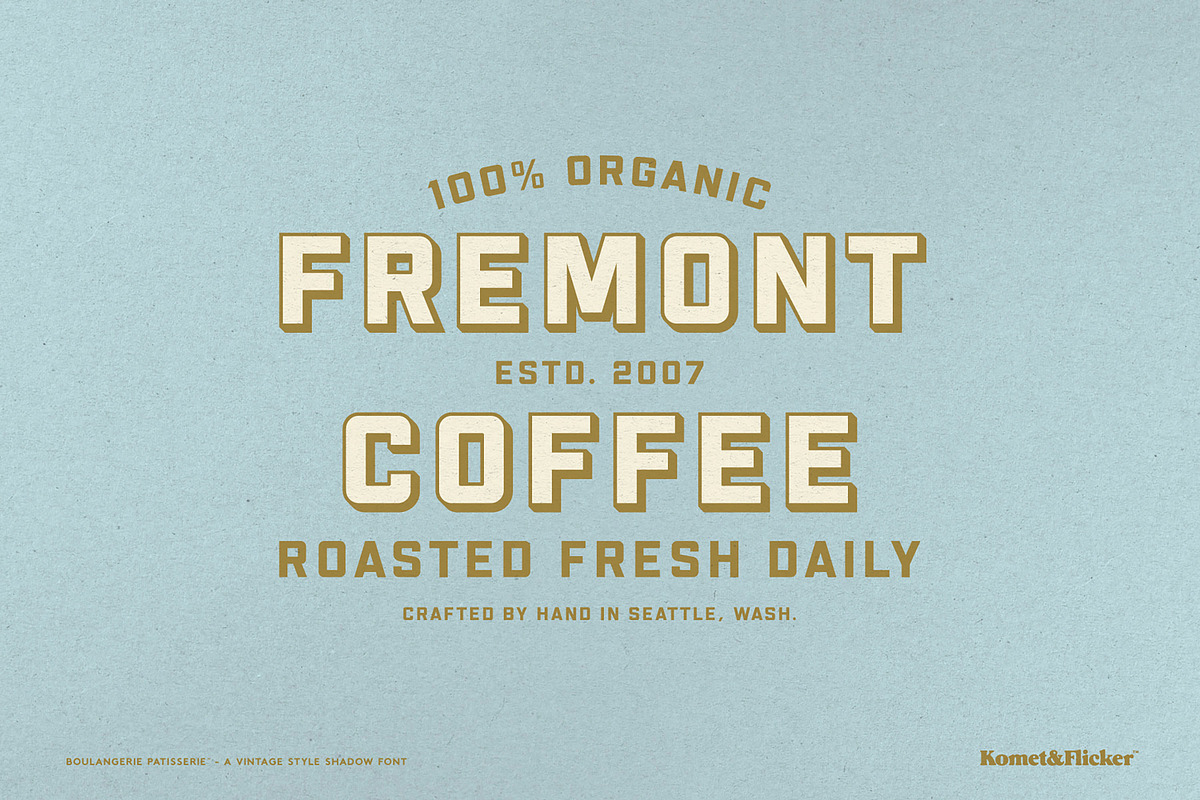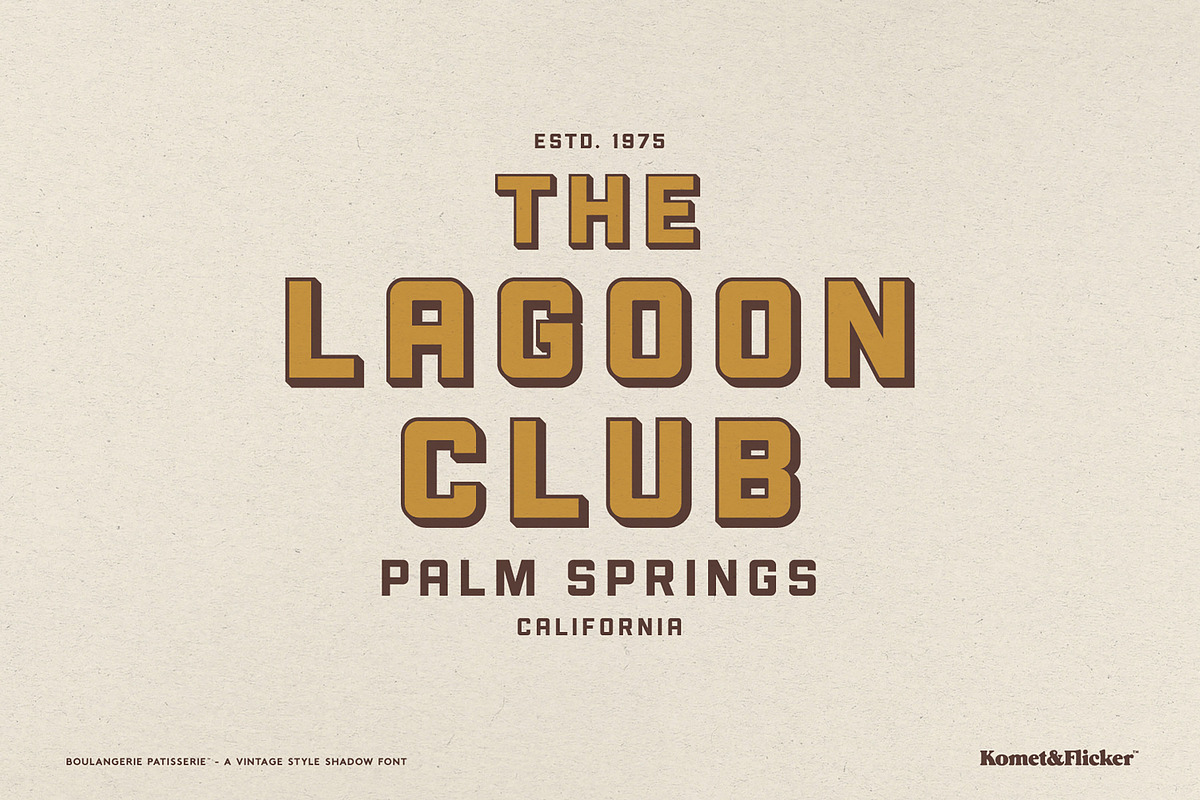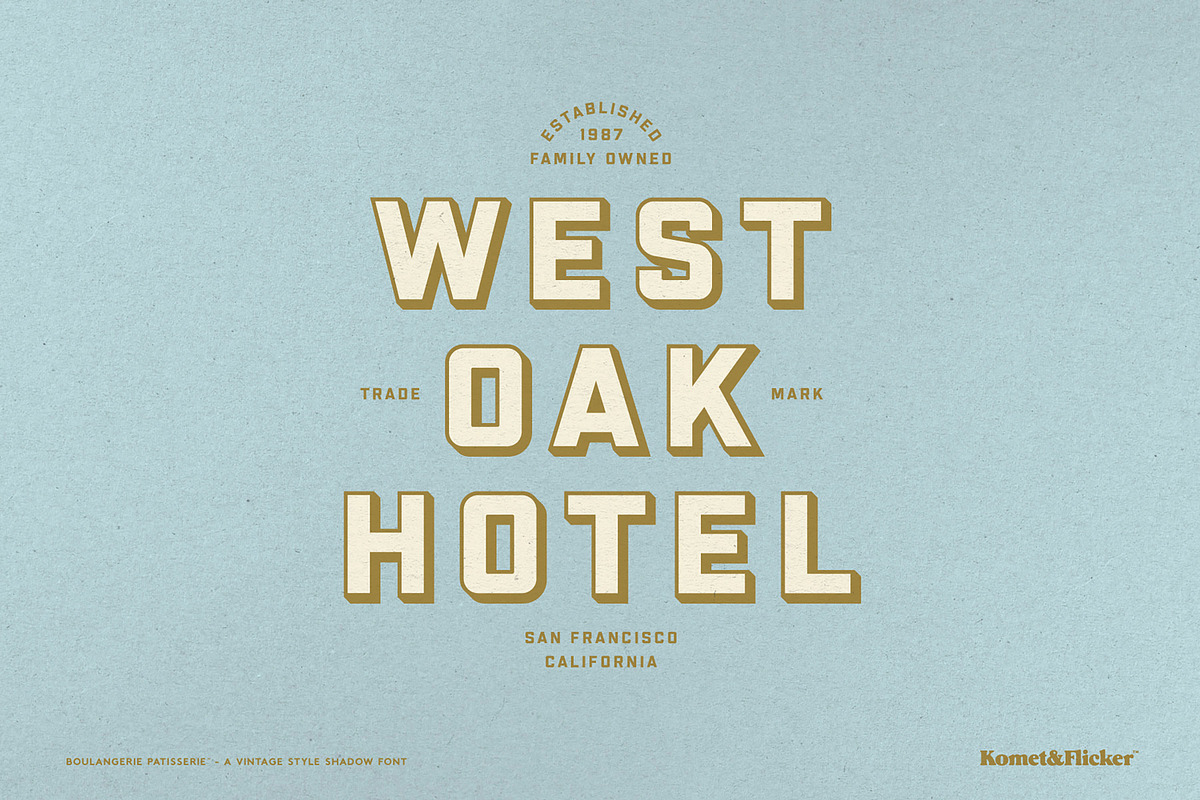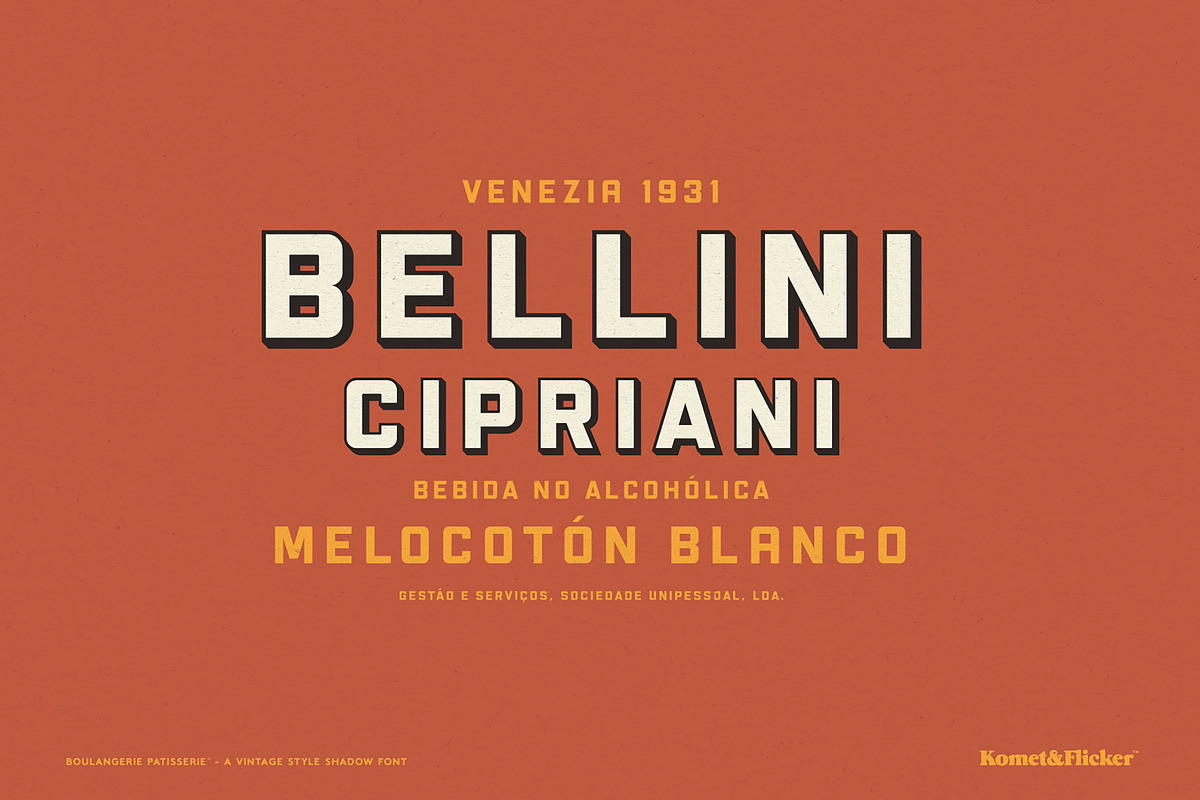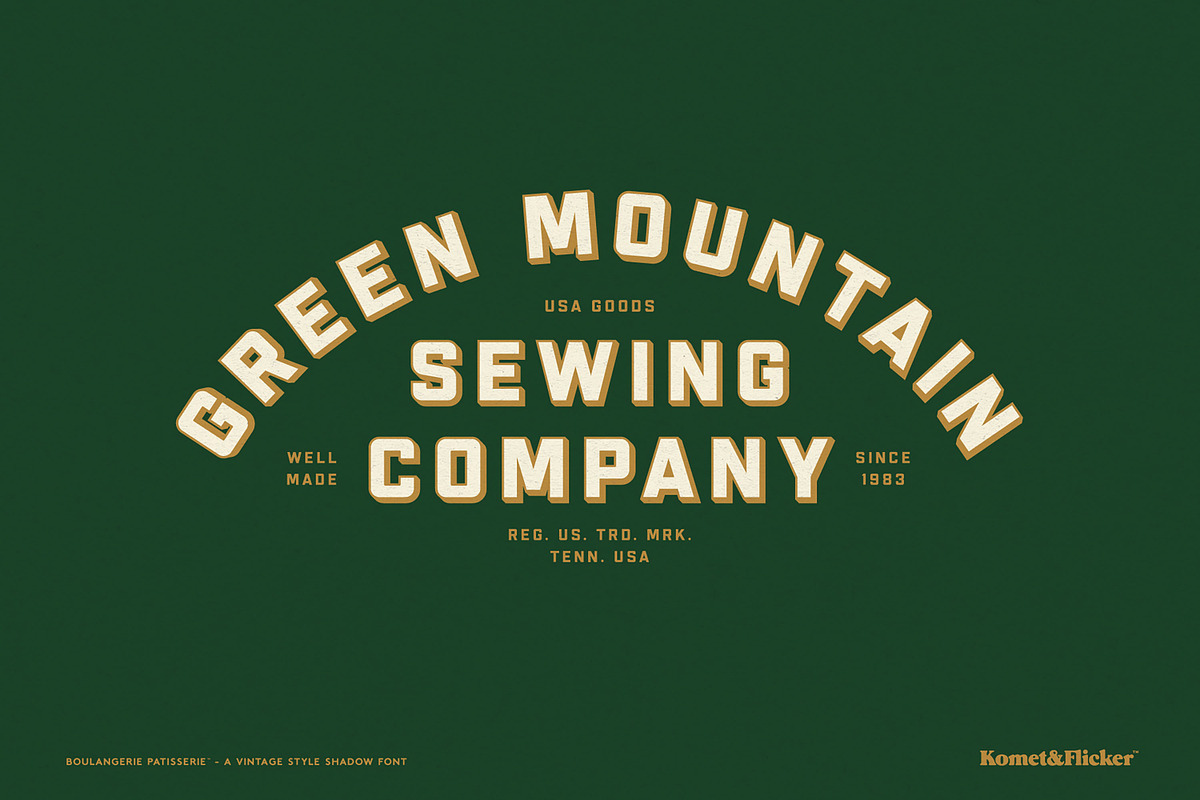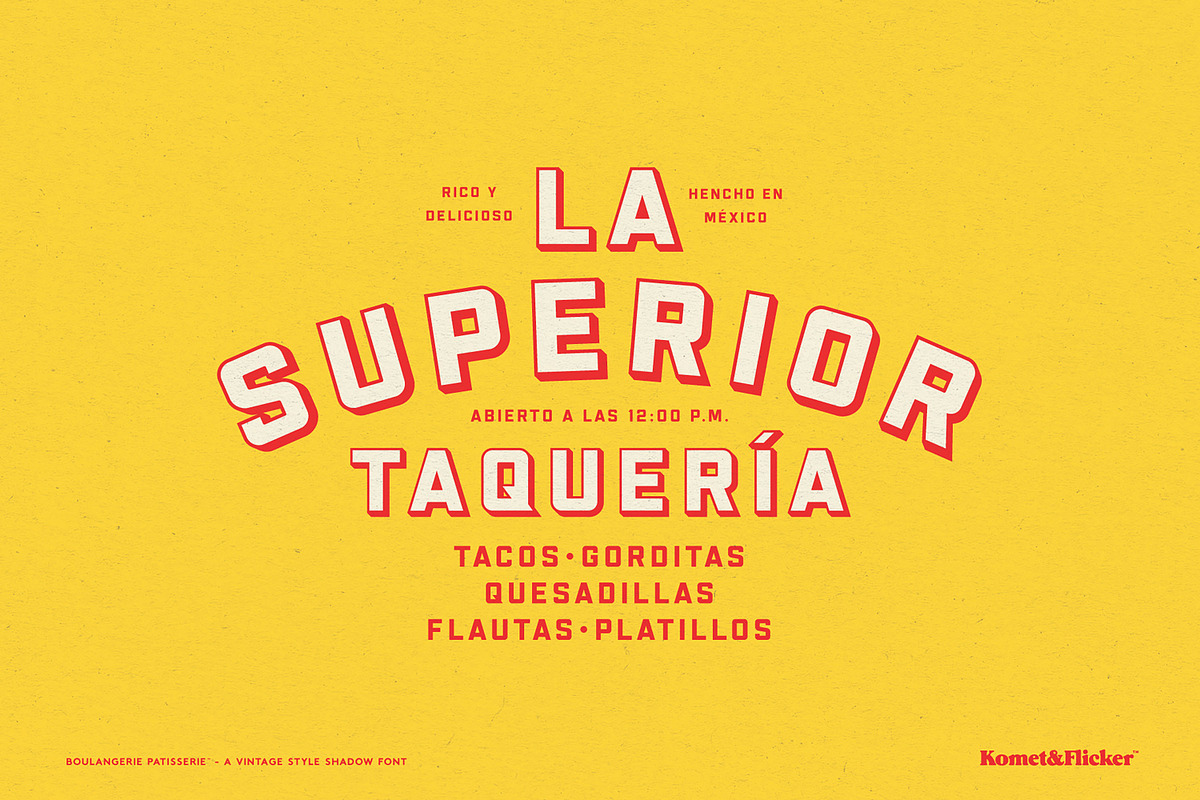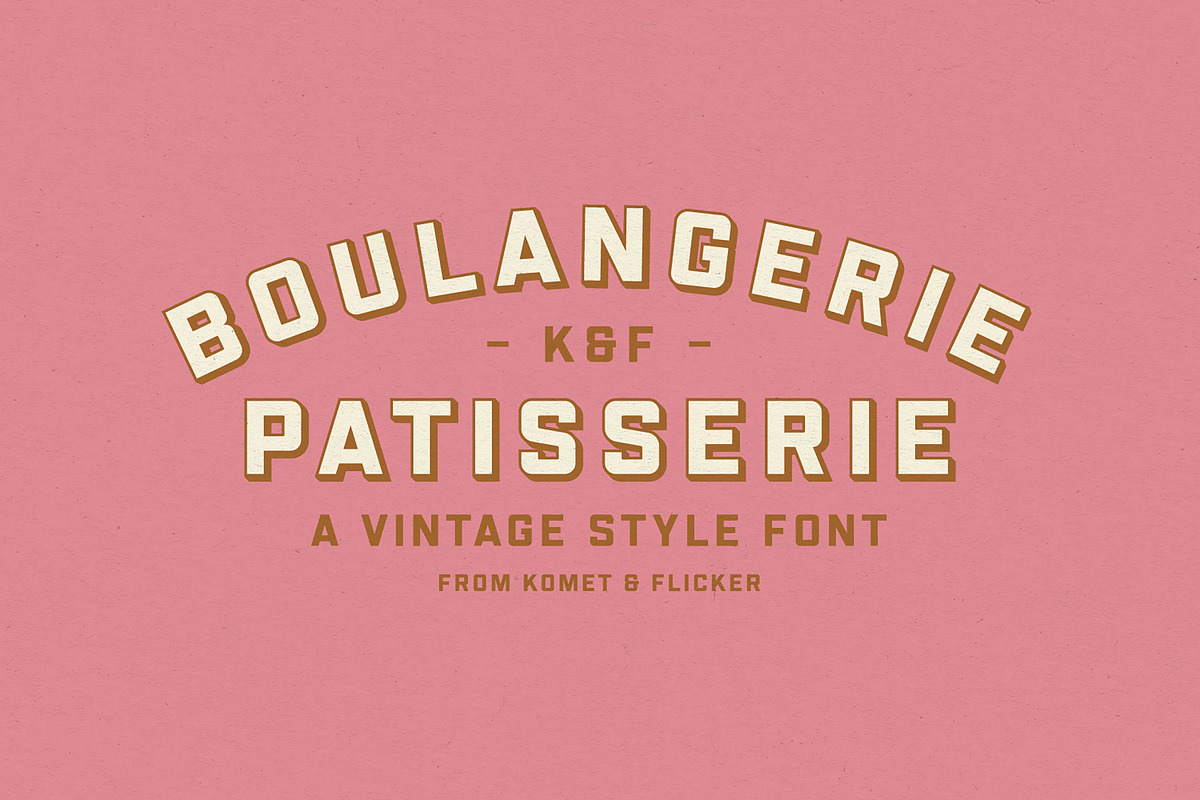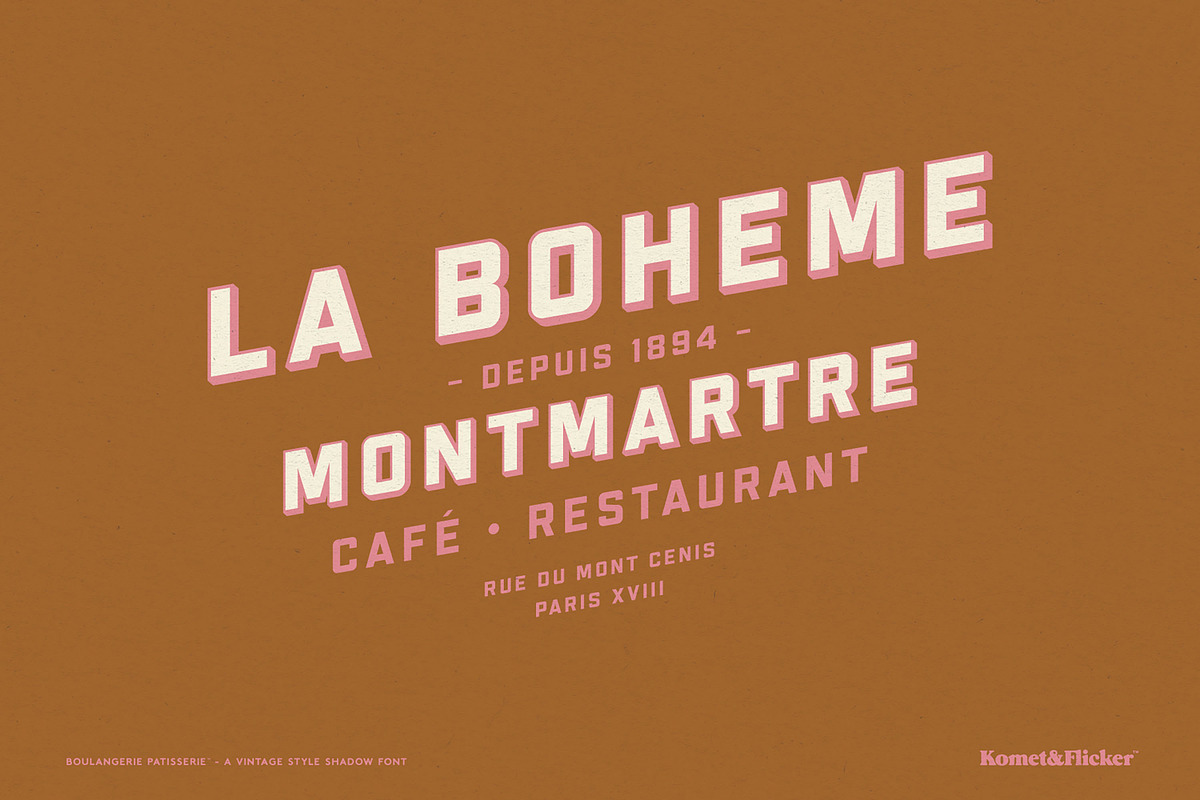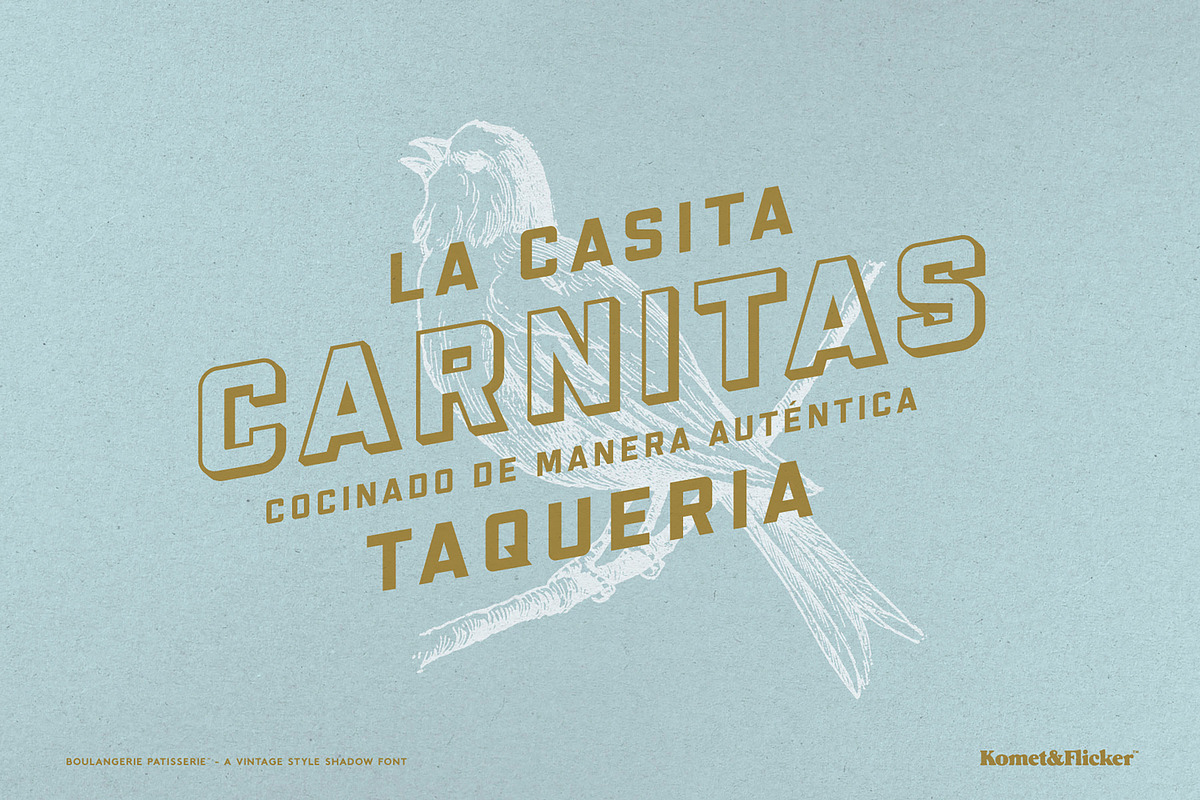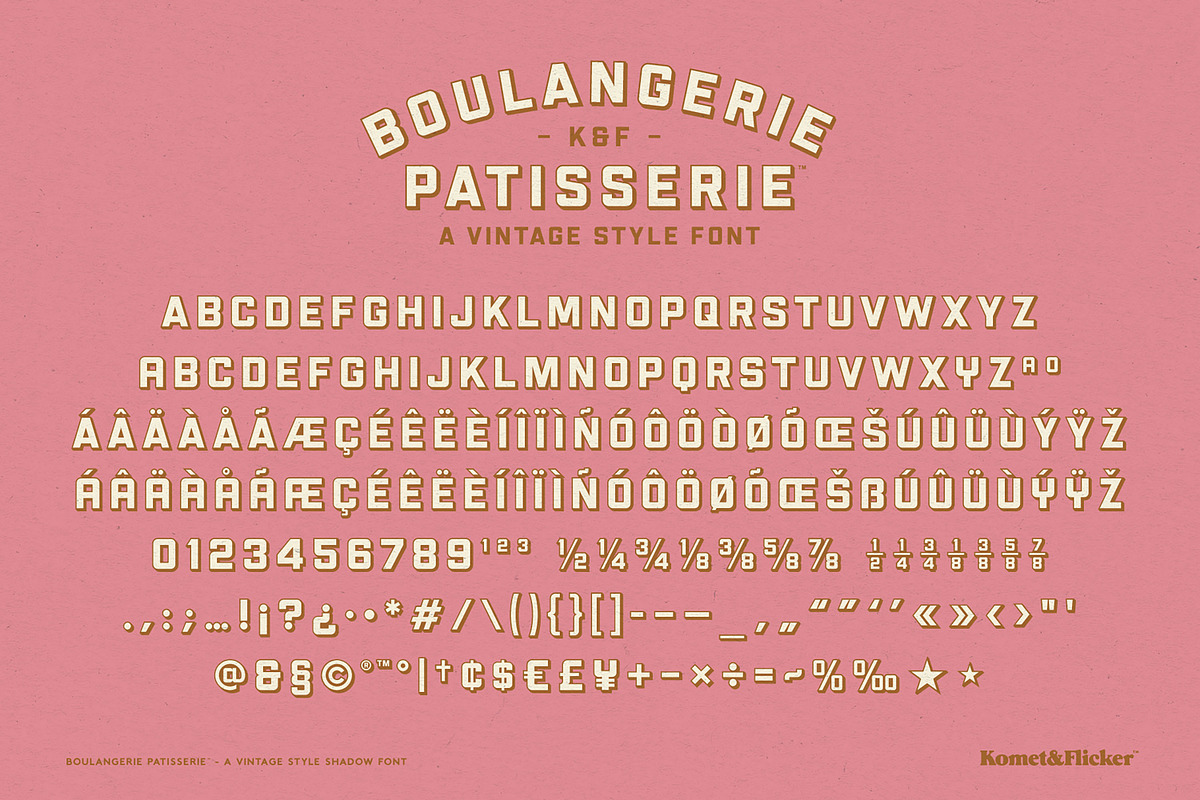
Boulangerie Patisserie
Boulangerie Patisserie is a sans serif typeface inspired by vintage French signage – the kind of weathered, hand-painted lettering you'd find on an old bakery awning or shopfront window. Boulangerie Patisserie blends that nostalgic charm with clean, modern versatility.
This family comes in three styles: Base, Fill, and Shadow. Layer the Base and Fill together and they combine into a bold two-color shadow effect – ideal for eye-catching headlines, packaging, and signage with real vintage flair. The Shadow version works great on it’s own as does the Fill version.
Whether you're branding a café, designing a menu, or capturing that timeless Parisian storefront look, Boulangerie Patisserie adds warmth and character to every project.
THIS FONT INCLUDES
Full A-Z uppercase character set
Select European specific characters
Includes alternate characters for A, M, Q, S, and Y
Two styles of pre-made common fractions
Numbers, punctuation, and select symbols
Set of 25 custom connecting word glyphs in two styles